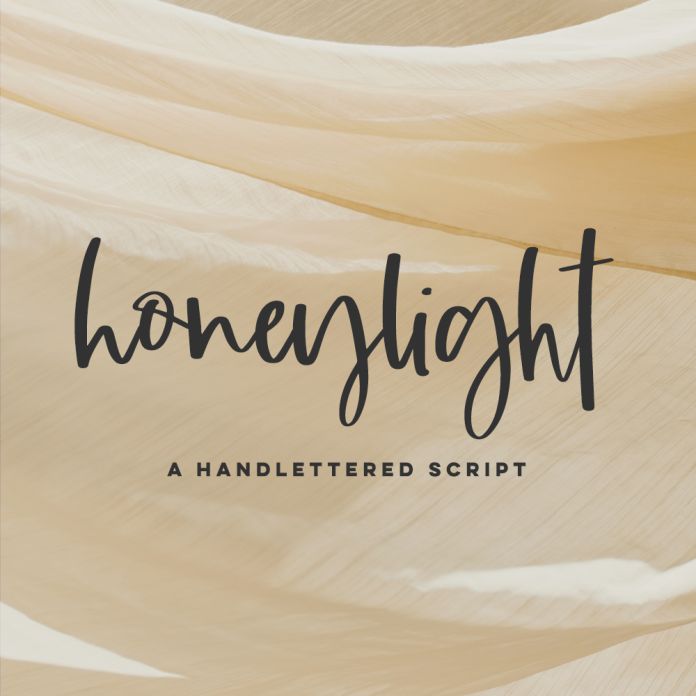
Honeylight Script Font
Introducing Honeylight Script, a handwritten signature style font. This stylish font features a messy, casual look with medium thickness for legibility and a slightly marker-like look. Honeylight includes alternates and ligatures to enhance the flow of the handwriting look & feel of your project! Honeylight Script is best for: - logos + branding - website design + website accents - think travel blogs, fashion blogs, & more - clean print design, like magazines + flyers - header elements that need handwritten touch - social media graphics for Facebook or Instagram, or quote graphics Honeylight includes: - full upper + lowercase characters - numbers + punctuation - Western European Language Support - 26 alternate characters - 14 ligatures - bb, dd, ee, ff, gg, ii, ll, mm, nn, oo, pp, rr, ss, tt - PUA-encoding